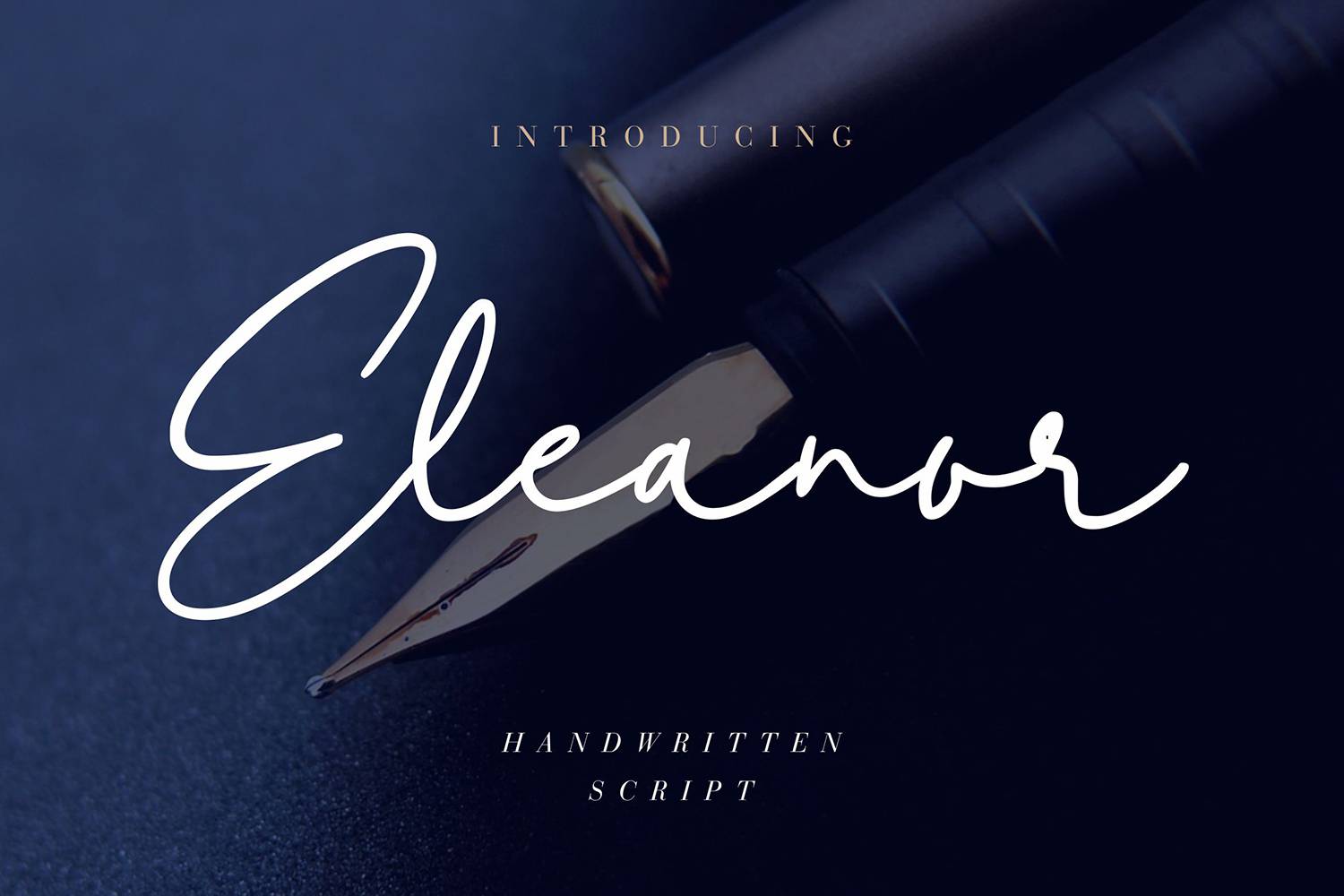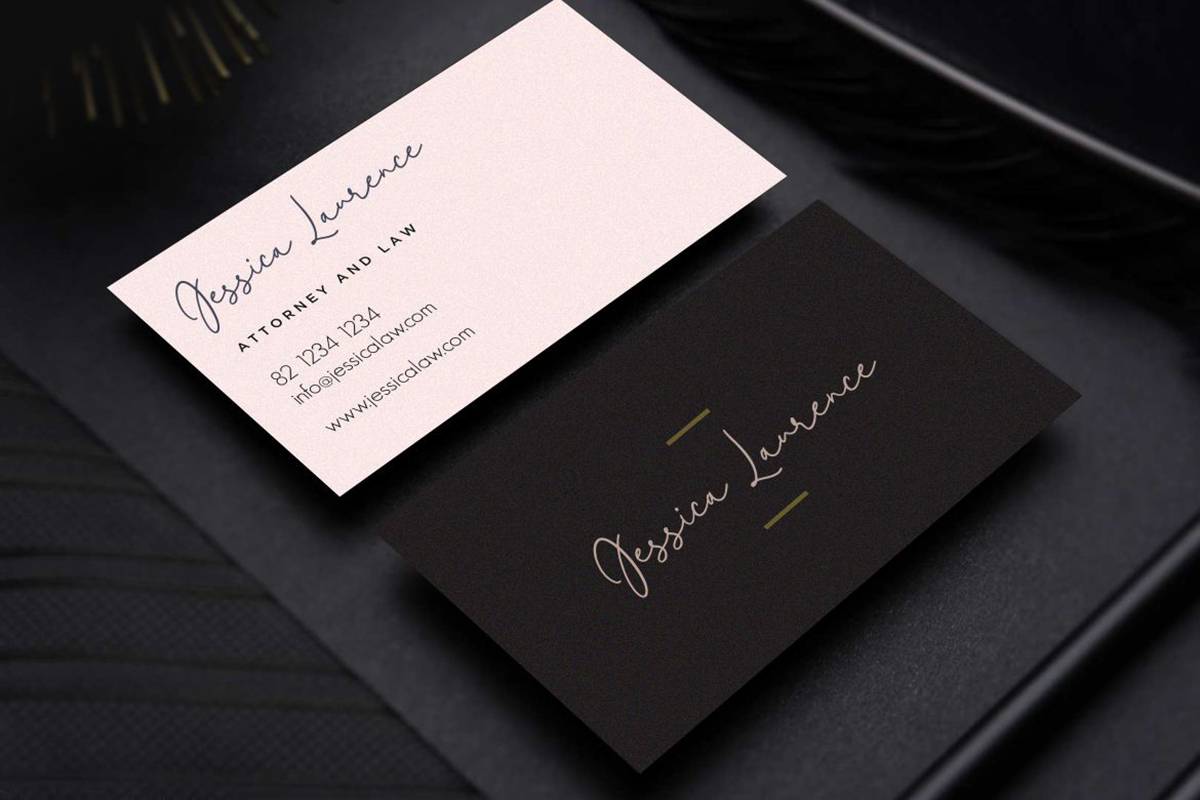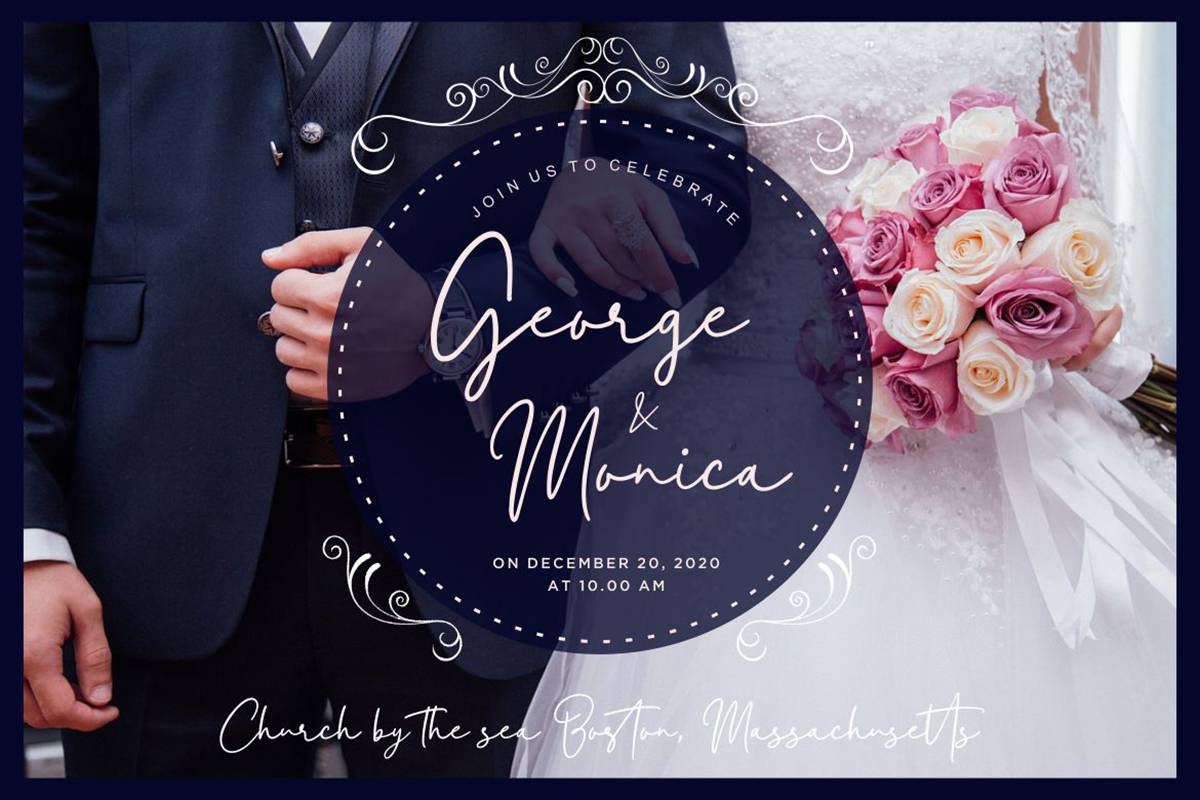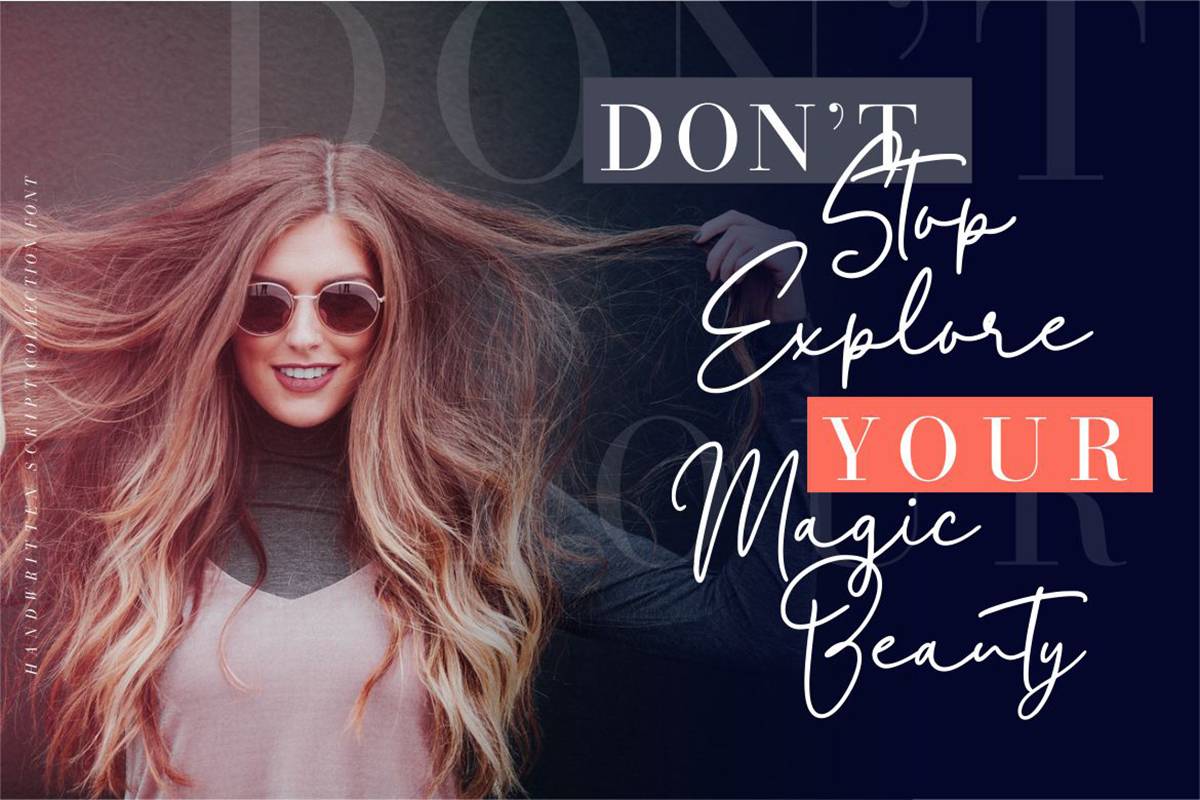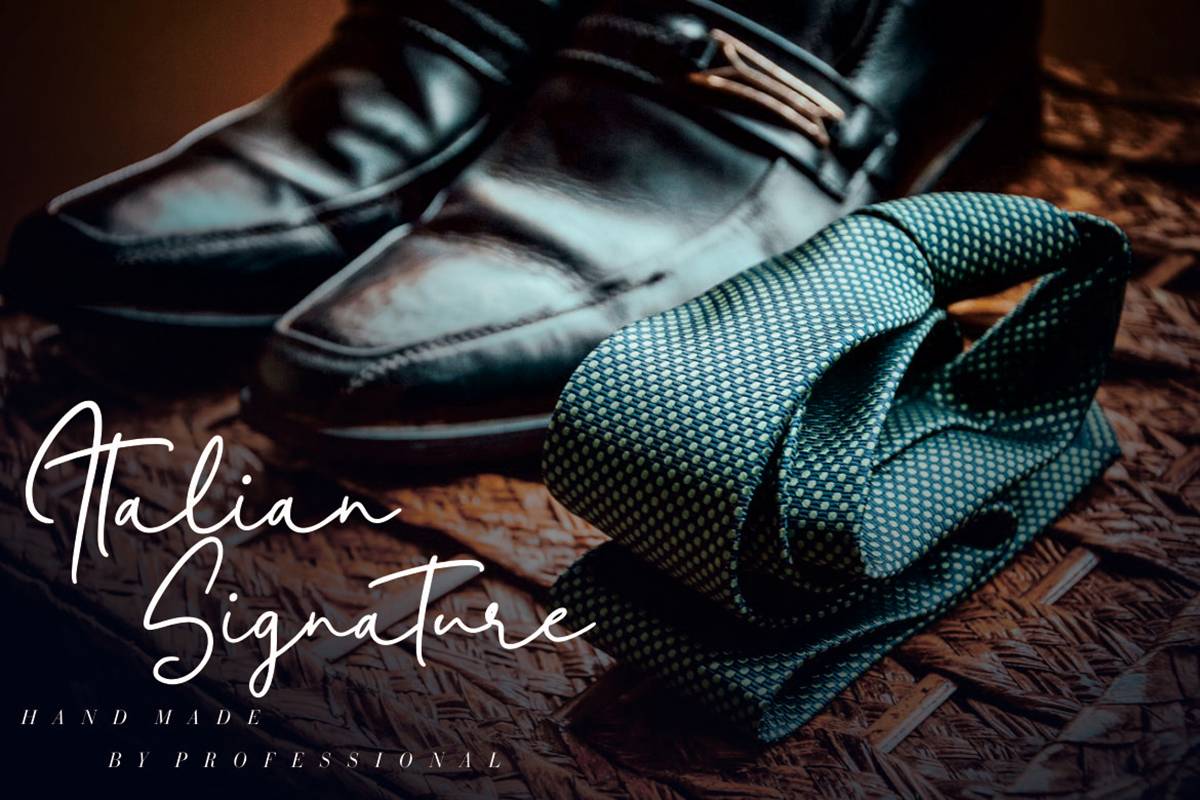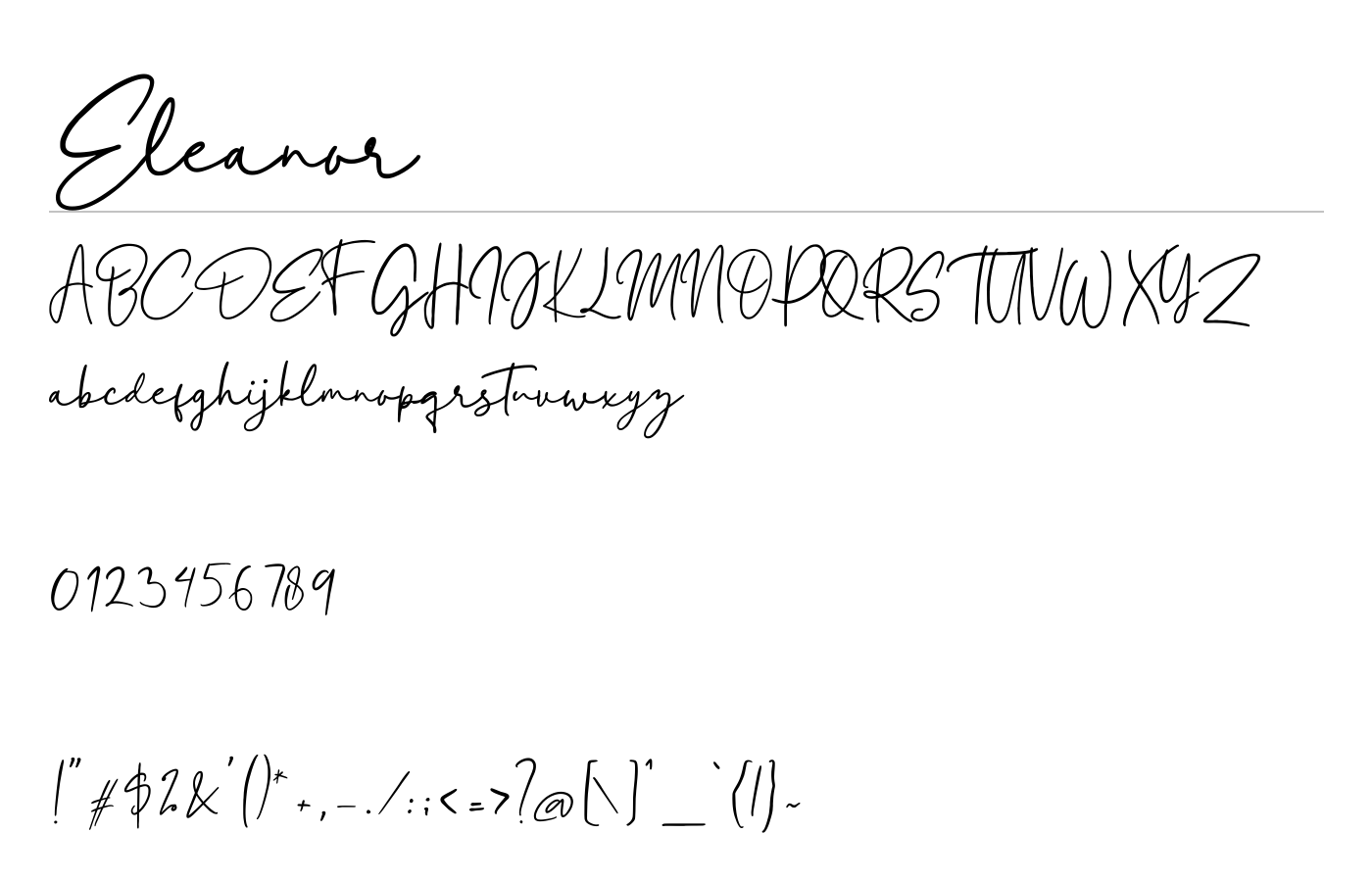
Eleanor Font is a delicate, handwritten script with a light and airy feel, characterized by slender, fluid strokes and a casual, natural flow. Its tall, narrow letterforms and smooth connections give it an elegant yet approachable personality, making it perfect for personal branding, invitations, and stylish editorial projects wanting a touch of warmth and sophistication. This font works best in logos and headlines where its expressive charm can stand out without losing readability.
Eleanor Font
About Eleanor Font
| Font family | Eleanor Font |